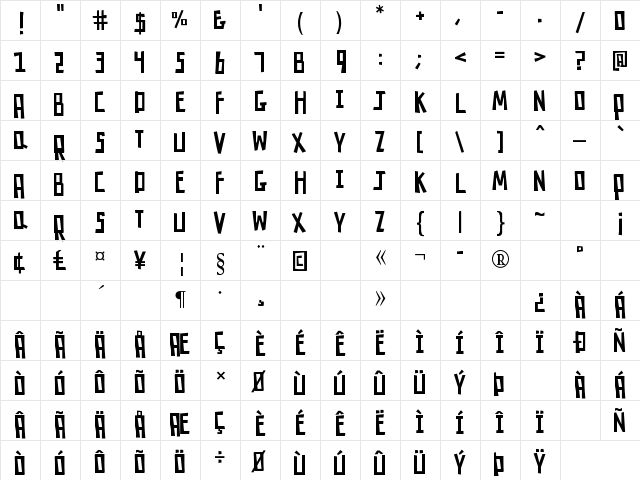
K26RobotRumble Regular
Design Context for K26RobotRumble
K26RobotRumble is a composed and adaptable typeface that performs quietly and consistently across a wide range of design contexts.
Pro Tip: Use K26RobotRumble in both headline and body roles to test its range before committing to a single application.